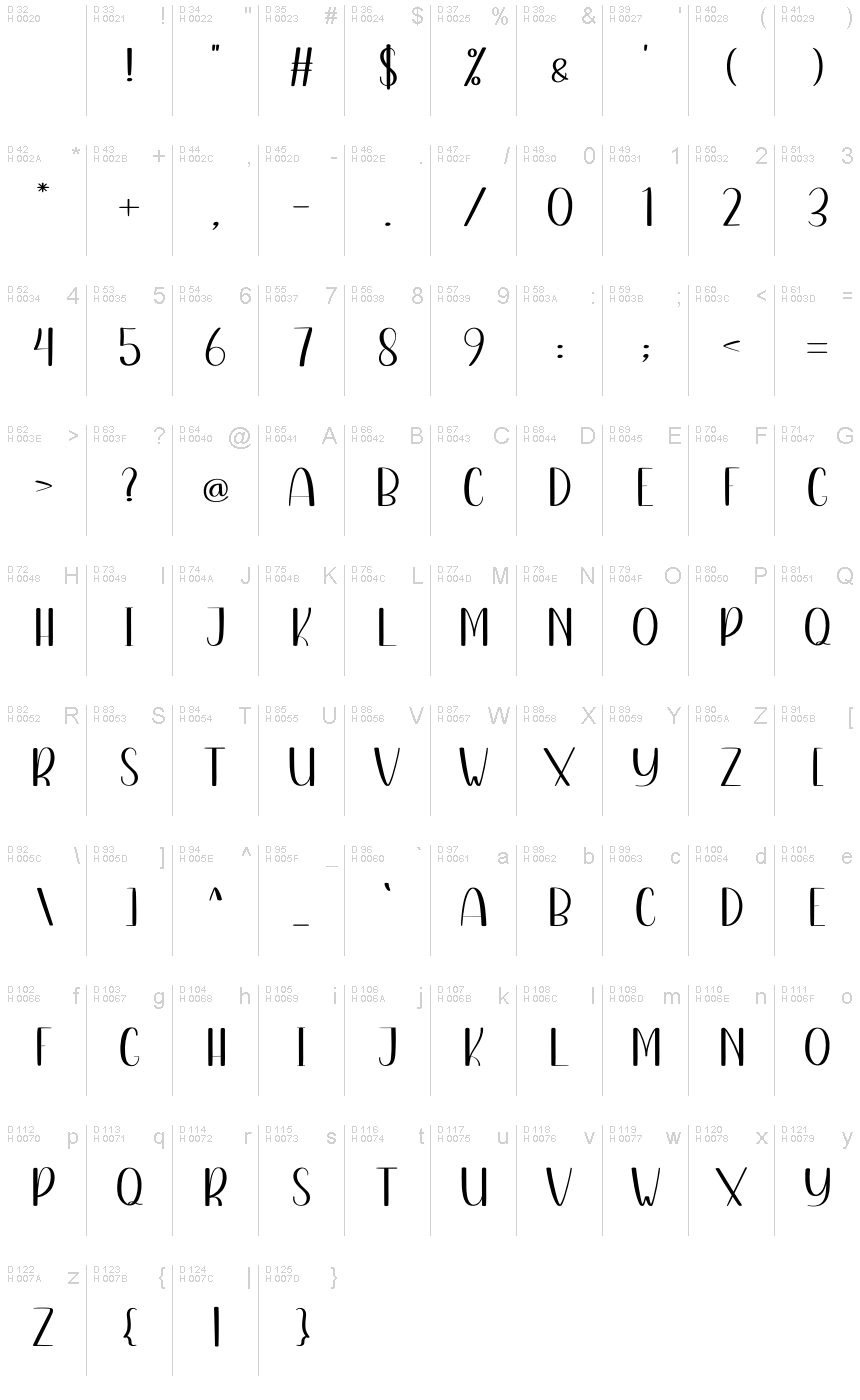
Mandala Design
Mandala Design is a captivating handwritten font crafted by Andi Moz. This condensed display font exudes a sweet and friendly aesthetic, with its whimsical strokes and playful character. The font's organic, hand-drawn quality lends a sense of warmth and personality, making it an engaging choice for a variety of design projects.
Mandala Design's versatility shines through, making it an ideal selection for crafting charming wedding invitations, heartfelt greeting cards, or any design that requires a playful, inviting touch. Its condensed width allows for efficient layout and legibility, while its handwritten style adds a personal, handcrafted feel to the final product.